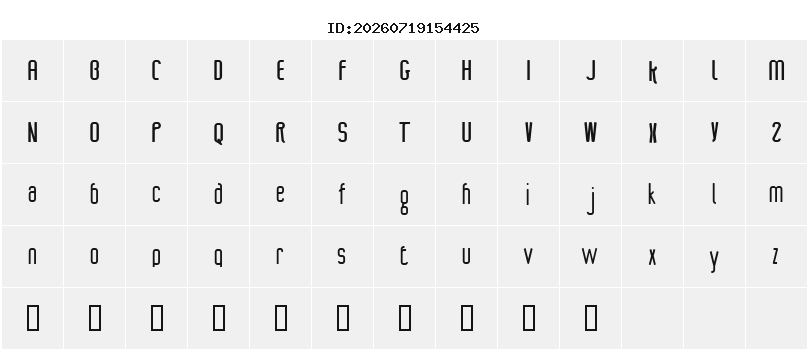
CONTROL Preview
• Font Name: CONTROL
• Full Font Name: CONTROL
• Character Count: 54
About CONTROL.ttf
CONTROL.ttf is a modern, elegant sans-serif font designed for ultimate readability and visual harmony. Perfect for branding, headlines, web design, and print materials.